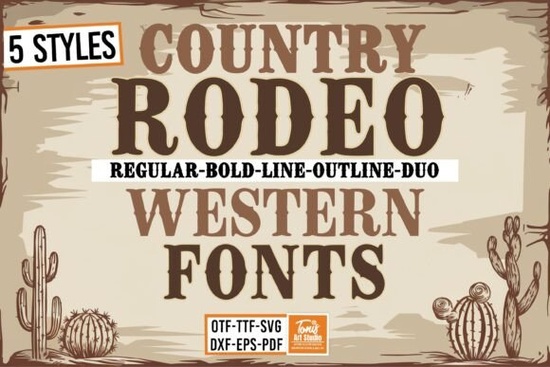
If you've been searching for a font bundle that captures the spirit of the American West, the Rodeo Western Font Bundle is worth a close look. It includes five distinct styles Regular, Bold, Line, Outline, and Duo each bringing a rugged, vintage cowboy feel to your work. Whether you're a designer, crafter, or small business owner, this bundle gives you plenty of flexibility without needing to buy multiple separate fonts.
What's Included in the Rodeo Western Font Bundle?
This isn't just one font with minor variations. Each of the five styles serves a different purpose in your designs:
- Regular A solid, all-purpose western typeface for body text or general use.
- Bold Thicker strokes that command attention, ideal for headlines and posters.
- Line A thinner, more refined take on the western style for subtle accents.
- Outline Great for layering, coloring, or creating a hand-drawn look.
- Duo A two-tone style that adds instant depth and dimension to lettering.
Who Is This Font Bundle For?
This bundle works well for a surprisingly wide range of creative projects. Here are some common uses:
- Logo design for ranches, barbecue restaurants, country bars, or western-themed brands.
- T-shirt designs for print-on-demand shops selling cowboy or rodeo-themed apparel.
- Event signage for rodeos, county fairs, barn weddings, or themed parties.
- Social media graphics that need a rustic, frontier feel.
- Crafting projects using Cricut or Silhouette for personalized gifts and home décor.
If you run a small business with a western or outdoor brand identity, having five styles from one cohesive family makes it easy to keep your visual branding consistent across different formats.
How Does It Compare to Other Display Fonts?
Western fonts are a popular niche, and there's no shortage of options out there. The advantage here is the variety packed into a single purchase. Instead of hunting for five separate fonts that kind of go together, you get a matched set designed to work as a family.
The Outline and Duo styles are particularly popular with crafters because they create clean, defined edges that cut smoothly on vinyl, cardstock, and heat transfer material. If you sell handmade goods on Etsy or at craft fairs, these styles can help your products stand out.
What About Print-on-Demand Use?
For print-on-demand sellers, the Bold and Regular styles work especially well on t-shirts, mugs, tote bags, and posters. The rugged western look has consistent demand especially around rodeo season, Fourth of July, and country-themed events. Having multiple styles means you can create product variations without the designs looking repetitive.
The Duo style is especially effective on dark apparel, where the two-tone effect pops without needing additional graphic elements.
- Pair wisely. Western display fonts look best paired with simple, clean sans-serifs for body text. Avoid combining them with other decorative fonts.